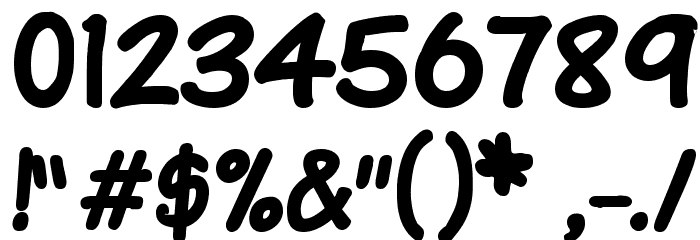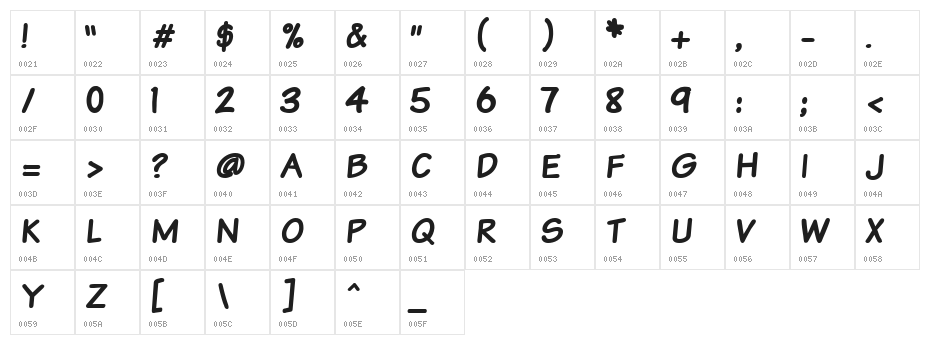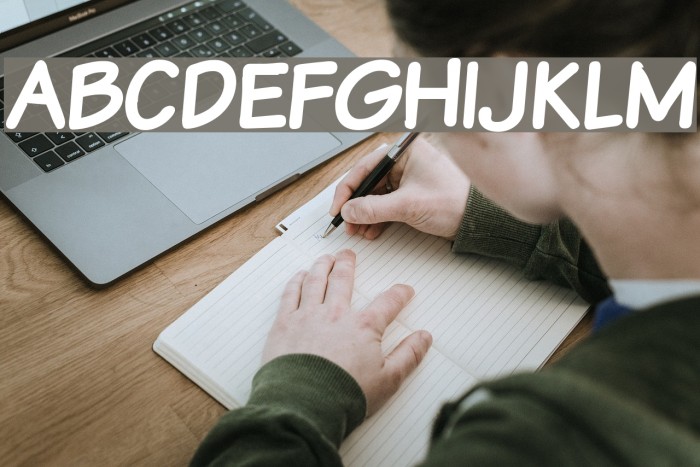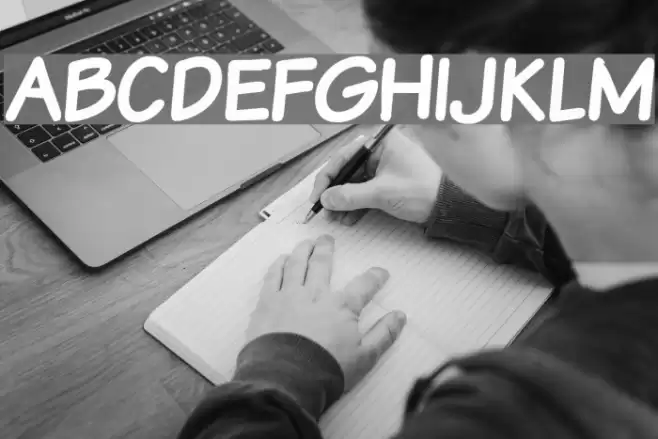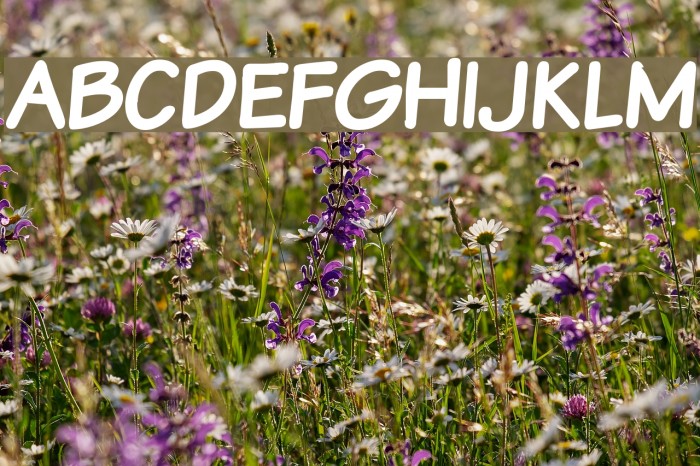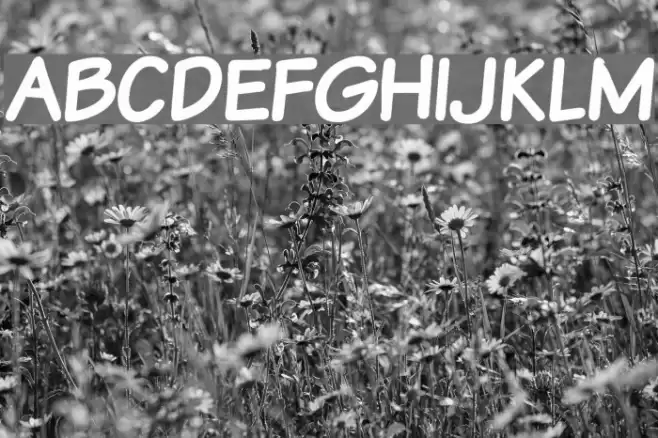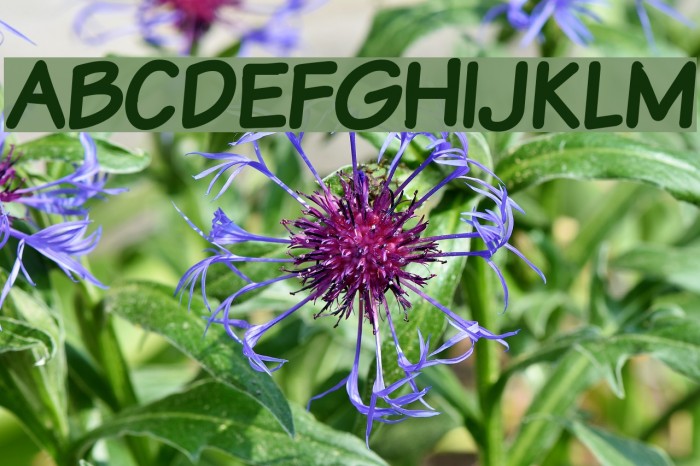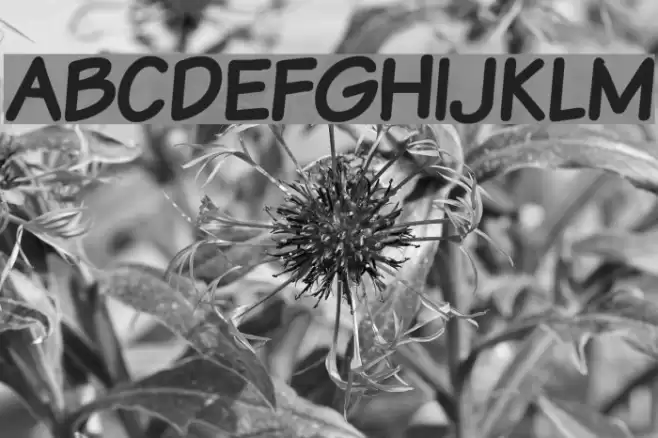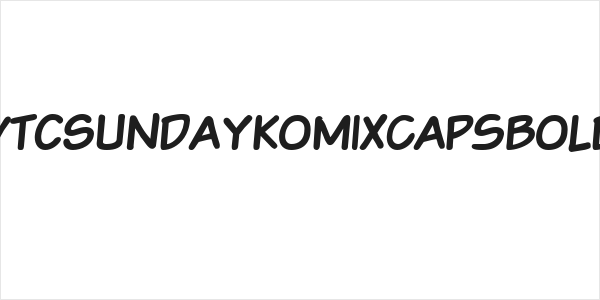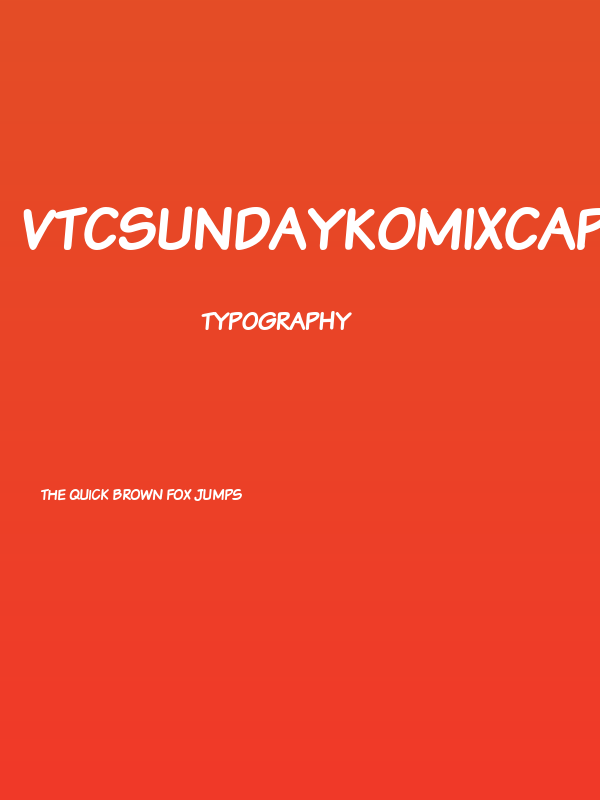
VTCSundaykomixcapsBold Font
VTCSundaykomixcapsBold Description
This playful and bold font features a hand-drawn, comic-style appearance with rounded edges and a slightly irregular baseline, giving it a casual and approachable feel. The uppercase and lowercase letters maintain a consistent style, with a slight slant that adds to its dynamic look. The numerals and special characters are designed to match the overall whimsical aesthetic, making it suitable for creative and informal projects. The strokes are thick and uniform, providing a strong visual presence.
| Overall Style | Playful, Casual, Comic |
| Proposed Projects | Ideal for comic books, children's books, playful branding, and informal posters. |